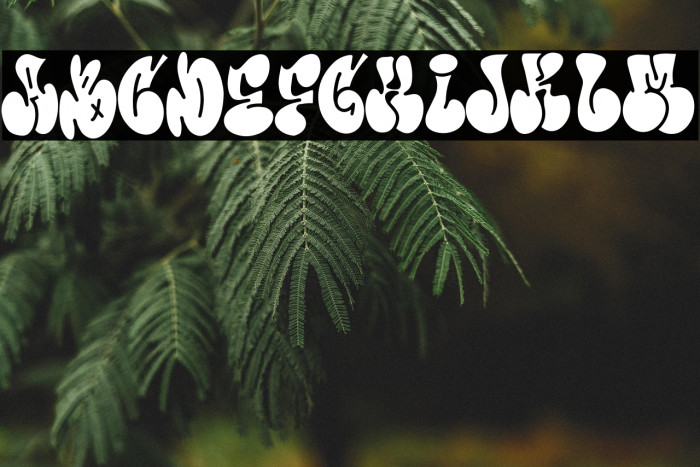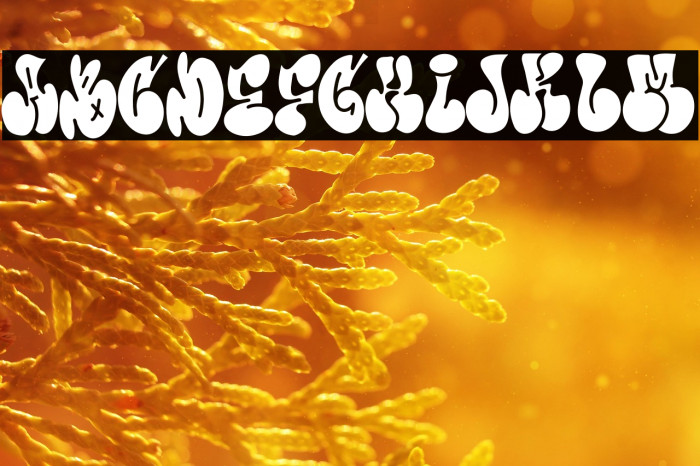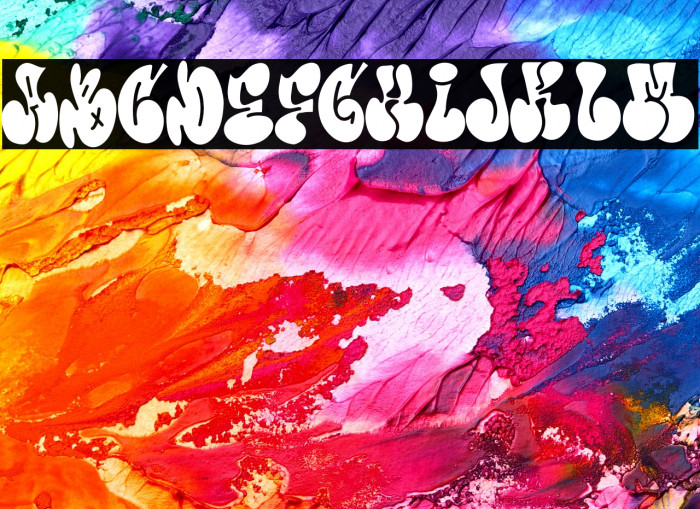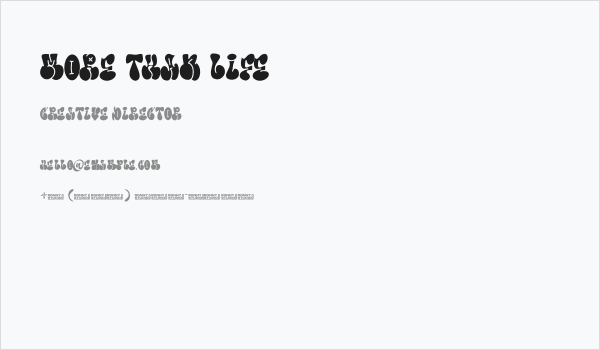
More Than Life Font
More Than Life Description
This font features a bold and playful design with exaggerated, bulbous shapes that give it a whimsical and eye-catching appearance. The characters are heavily stylized, with thick strokes and rounded forms that create a sense of movement and energy. The uppercase and lowercase letters maintain a consistent style, with unique flourishes and decorative elements that add to its charm. The numbers and special characters follow the same bold and playful aesthetic, making the font versatile for various creative applications.
| Proposed Projects | Ideal for children's book covers, playful branding, posters, and creative advertising campaigns. |